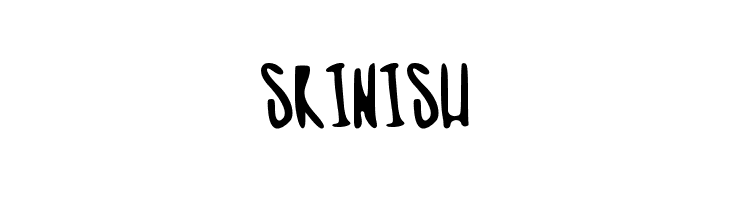
( Guy Rickard - gsaonline.blog.com )
A bold, playful handwritten font with dynamic and irregular letterforms.
( Fonts by Astigmatic One Eye Typographic Institute - Brian J. Bonislawsky - astigmatic.com )
A dramatic, edgy font with sharp, elongated strokes and a cohesive design.
A sharp, edgy font with elongated strokes and a dramatic appearance.
( Kat and Taylor! )
A playful, hand-drawn font with elongated, narrow characters.
( Reema Chhabra - www.facebook.com/artistic.reema )
A playful, hand-drawn font with tall, narrow characters and a whimsical style.
( Fonts by Malley F. )
A playful, hand-drawn font with bold, rounded characters and a whimsical style.